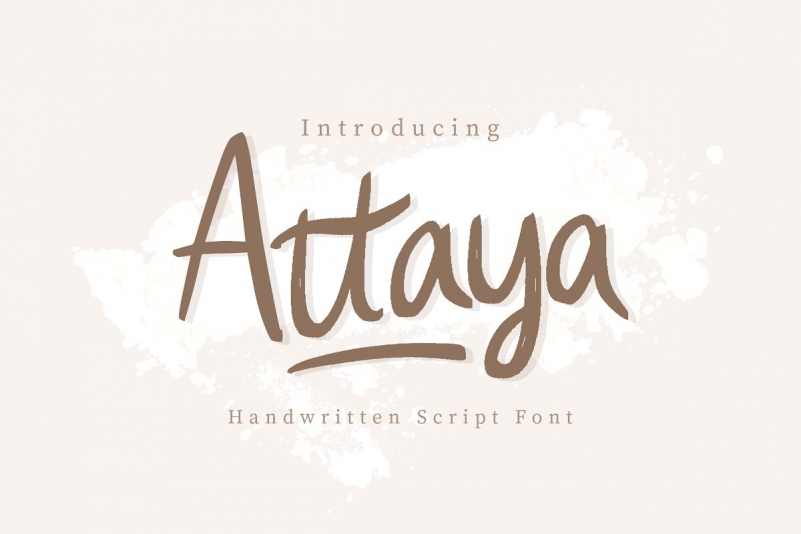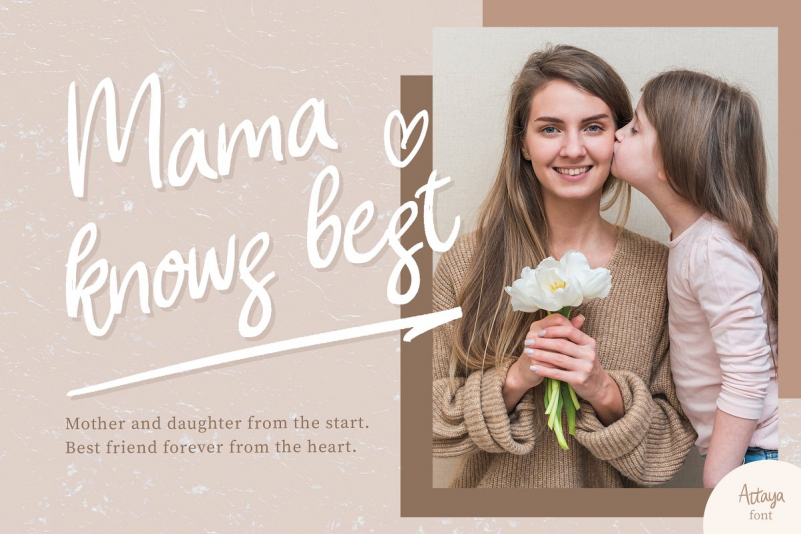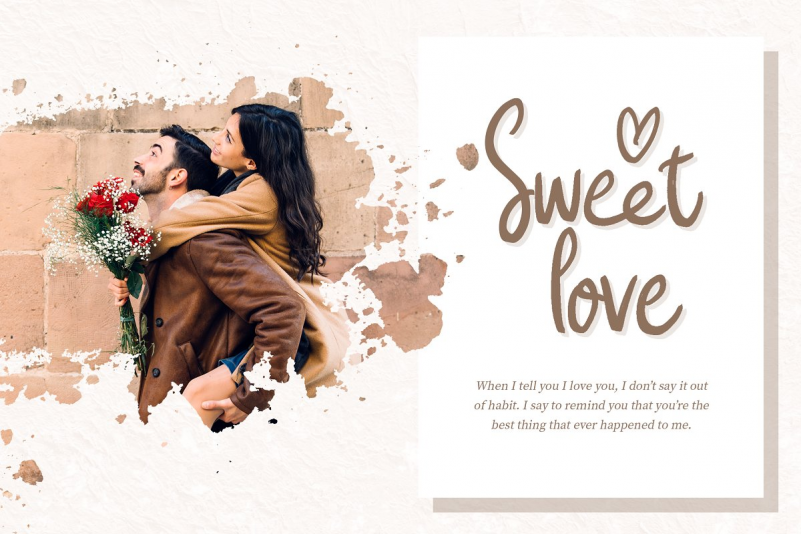
Attaya Font
Attaya is a fun and lovely font type, it’s a perfect fit for the beauty facial, love and nature theme, product packaging, healthy food – or a stylish text overlay to any background image. It’s also could be good for both fun and semi-formal text.